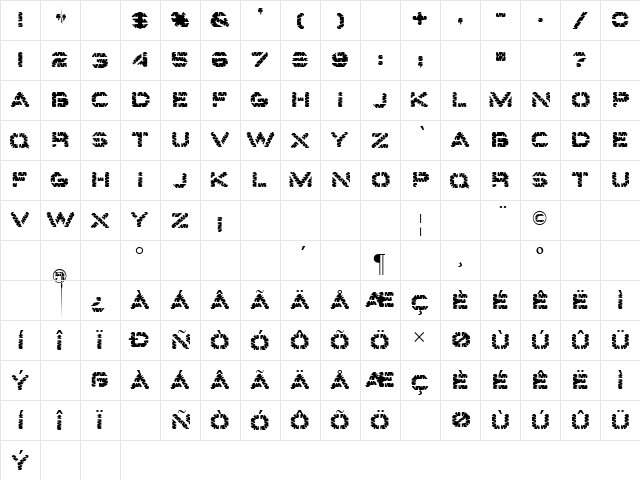
Edgewater Regular
Design Context for Edgewater Typeface
Edgewater is a composed and adaptable typeface that performs quietly and consistently across a wide range of design contexts.